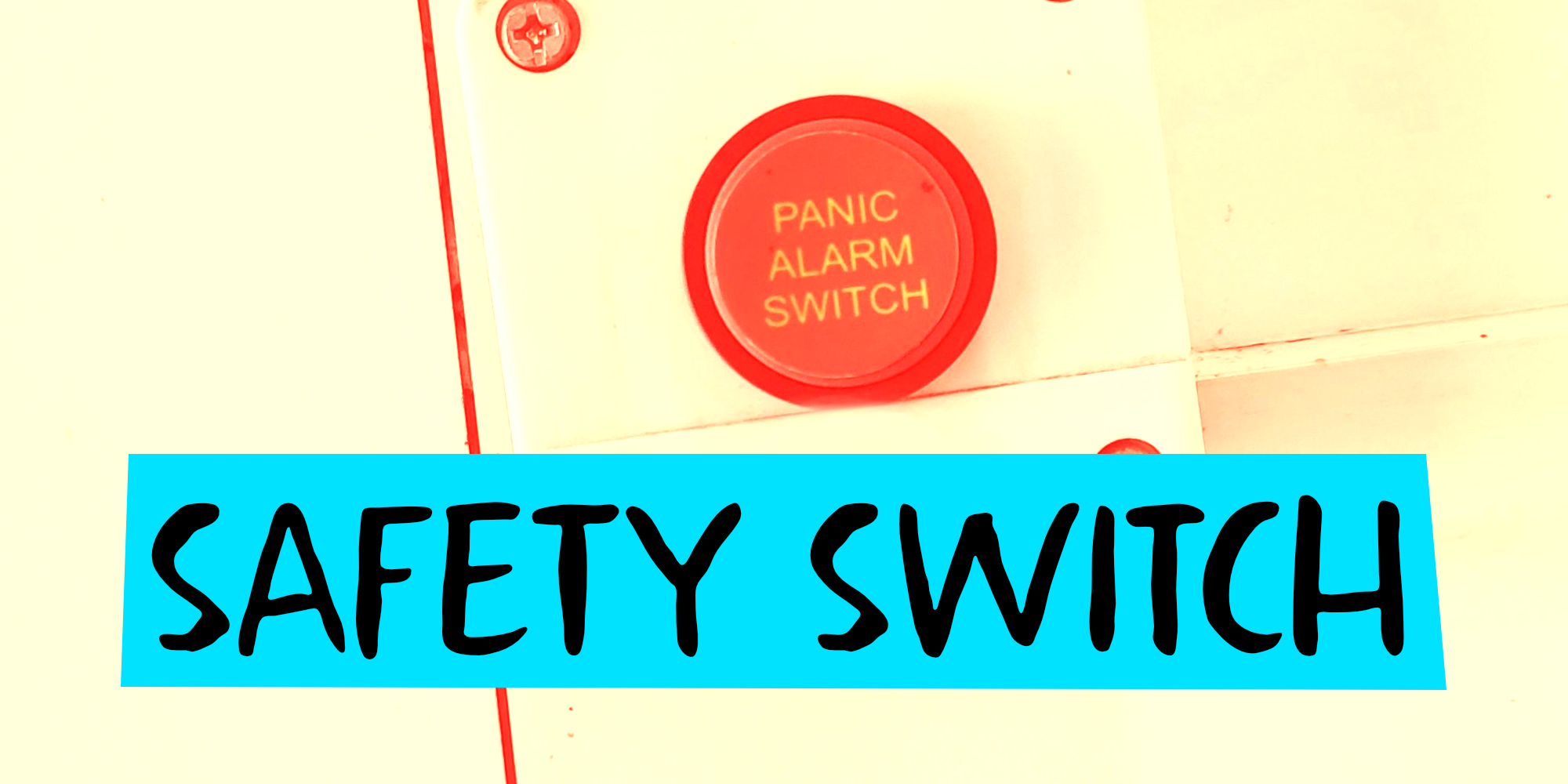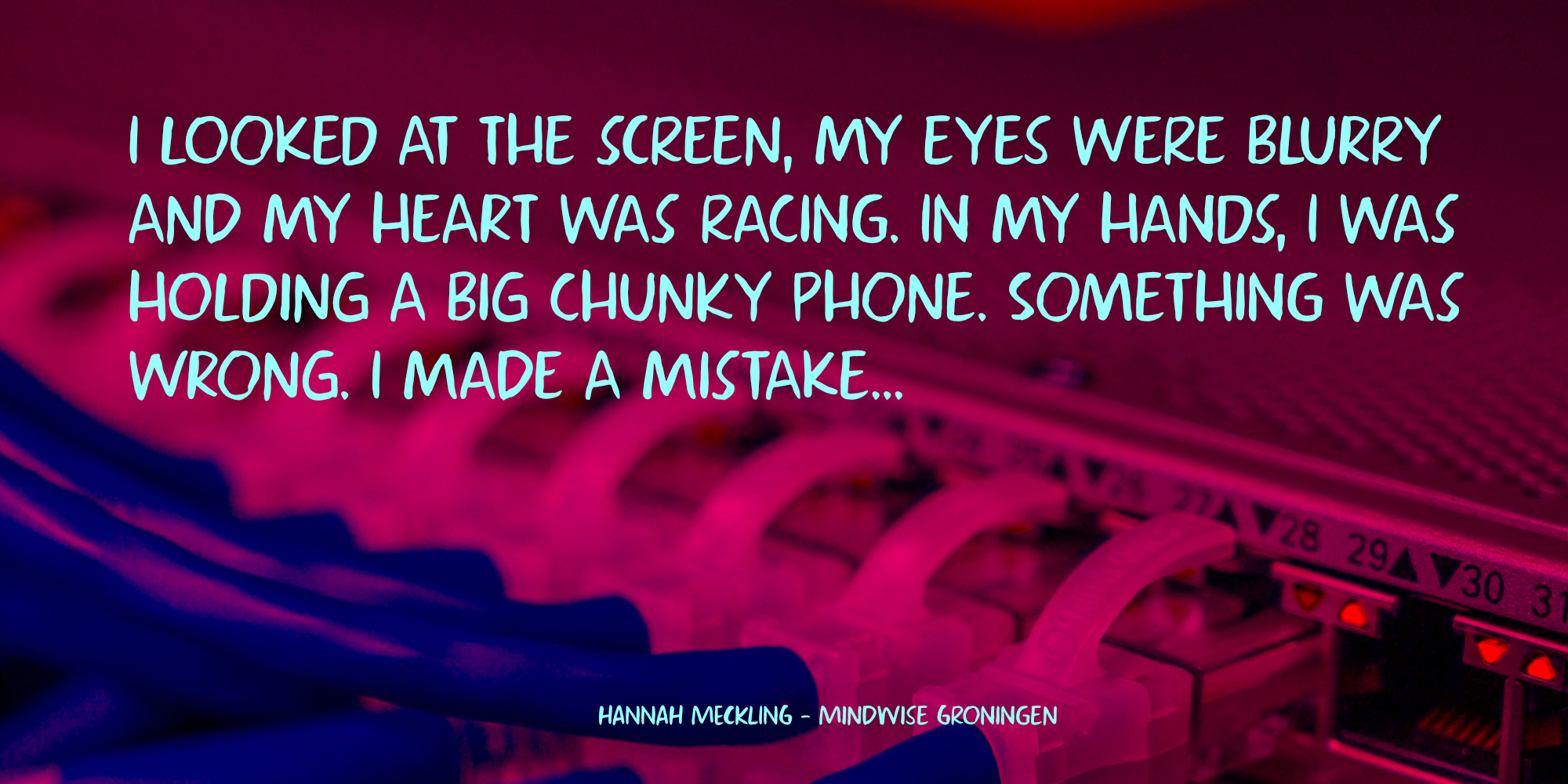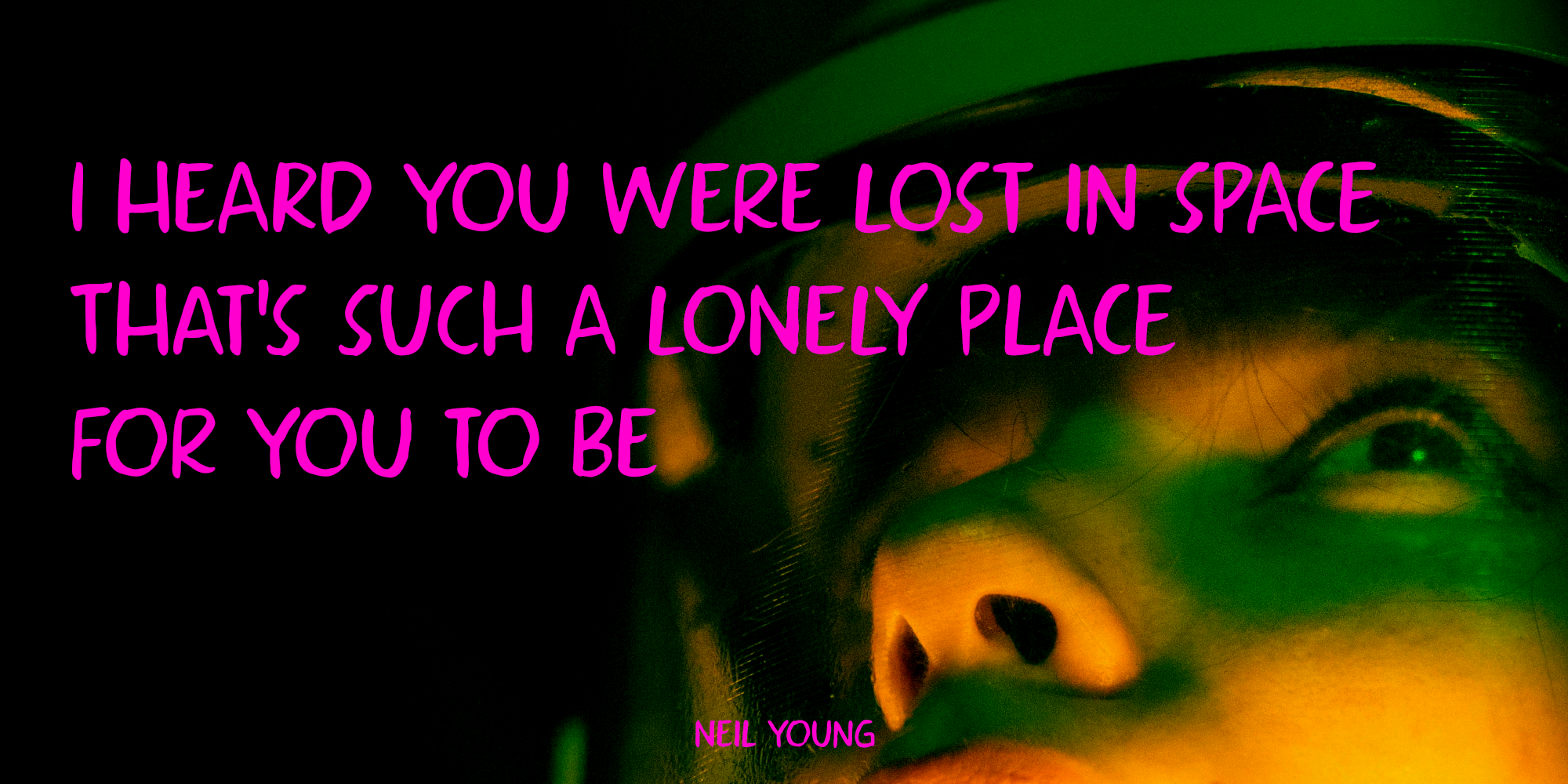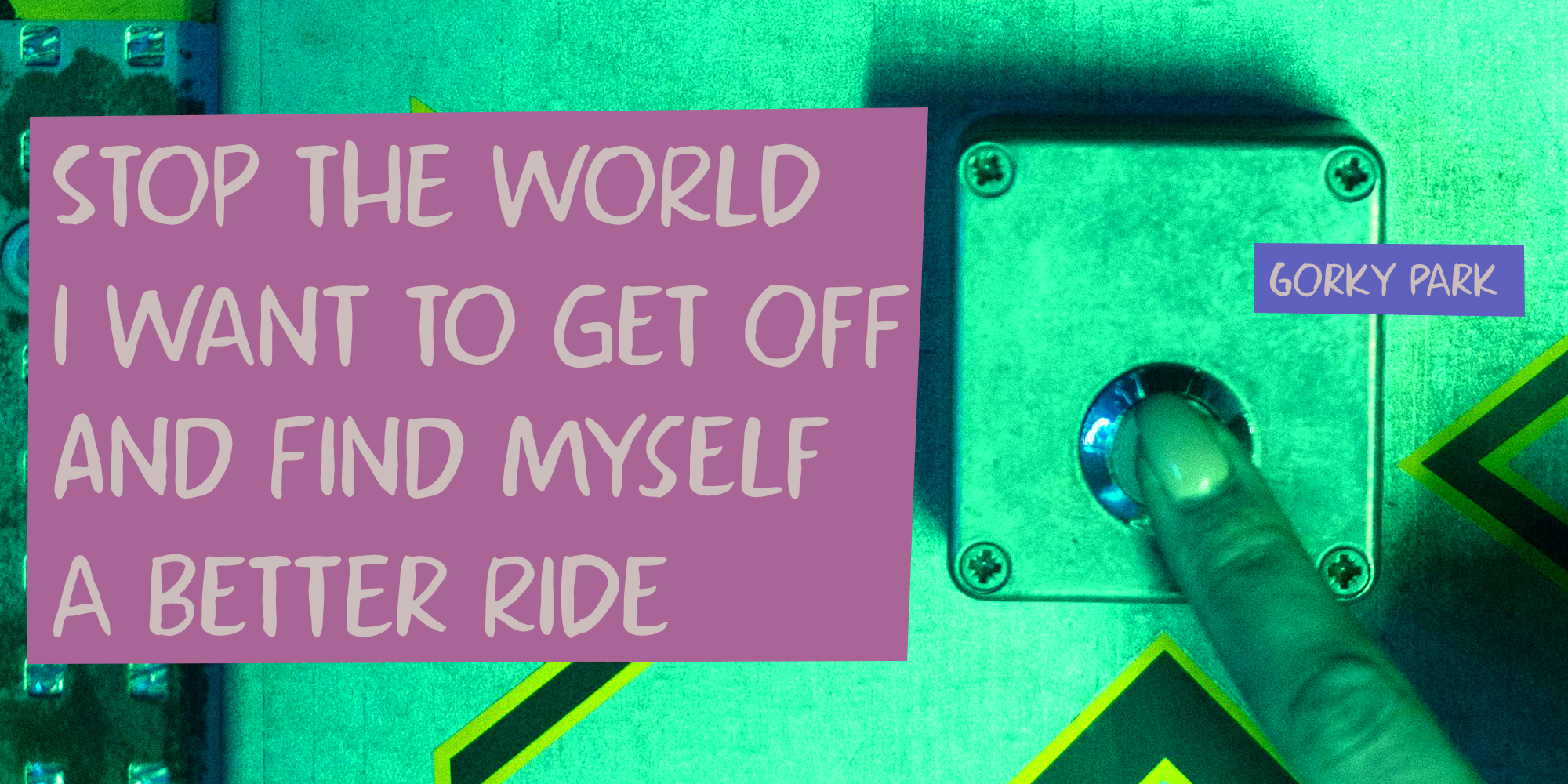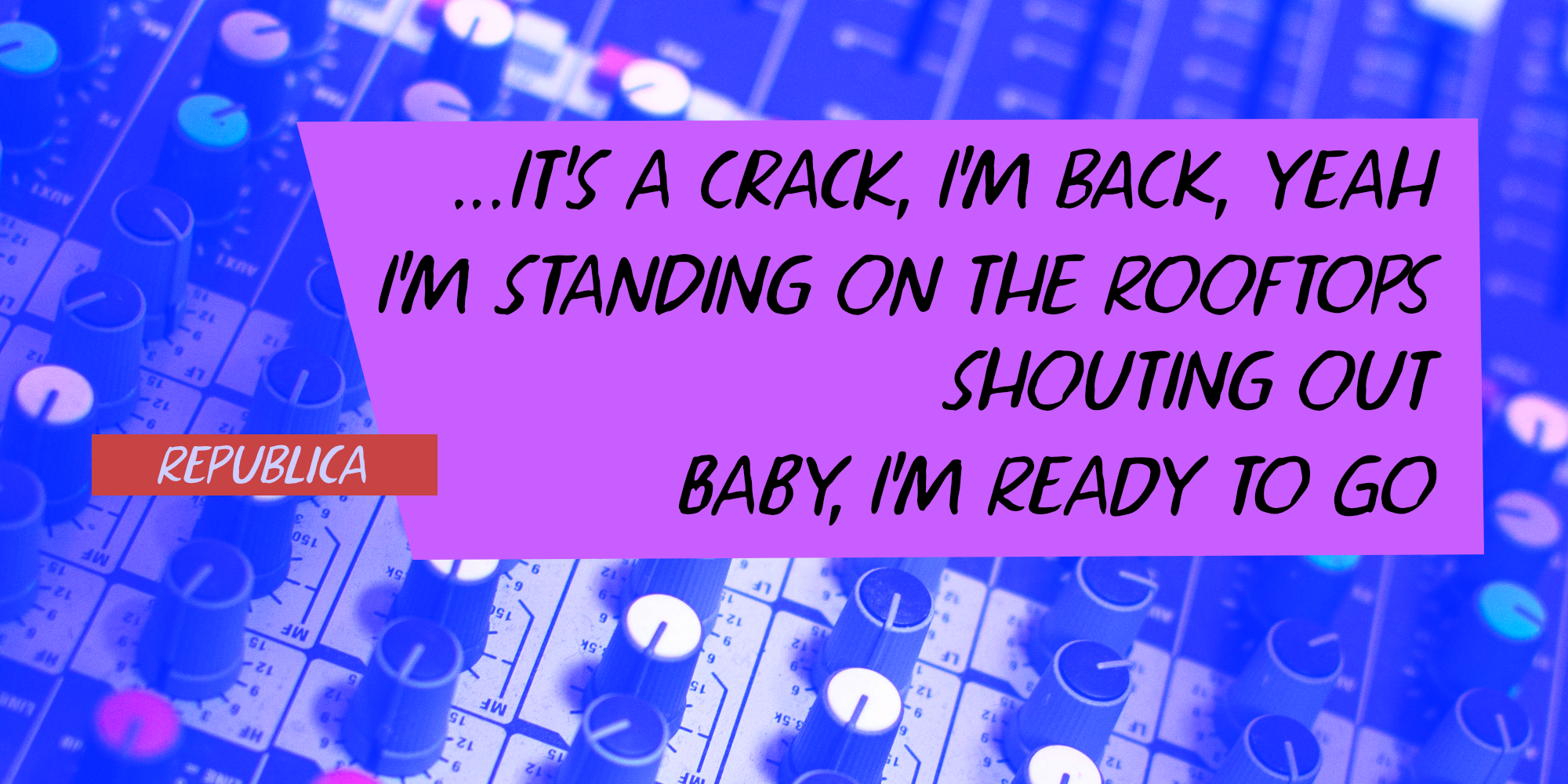
Safety Switch (2 fonts)
Safety Switch is a nice, handmade font. It was created using a thin brush and Chinese ink. It comes with extensive language support and a set of contextual alternates.